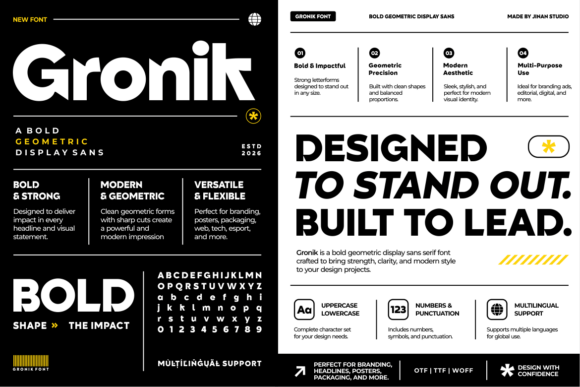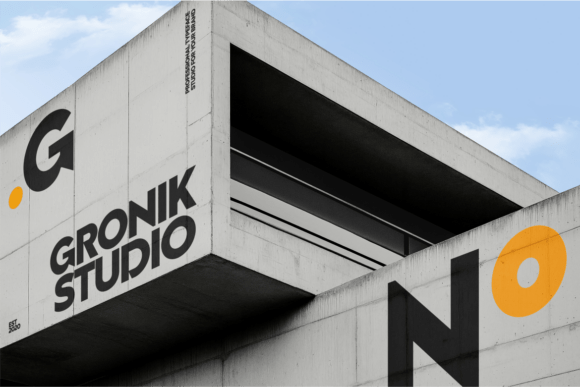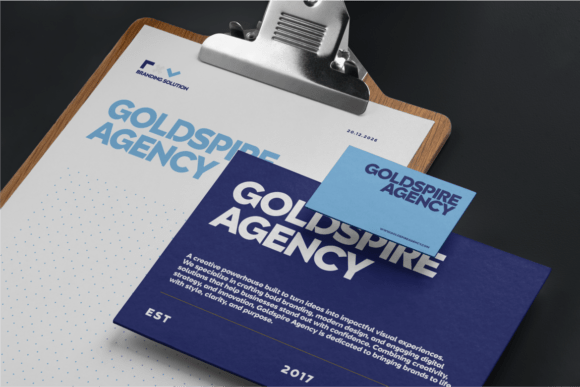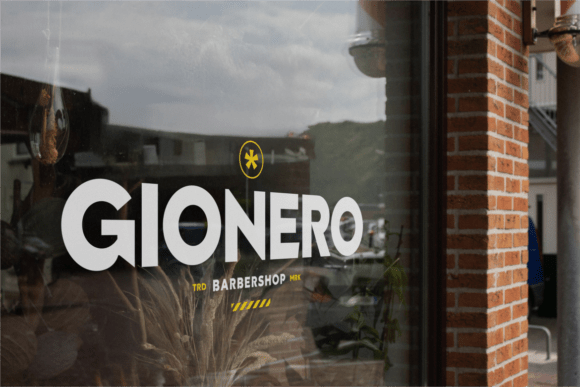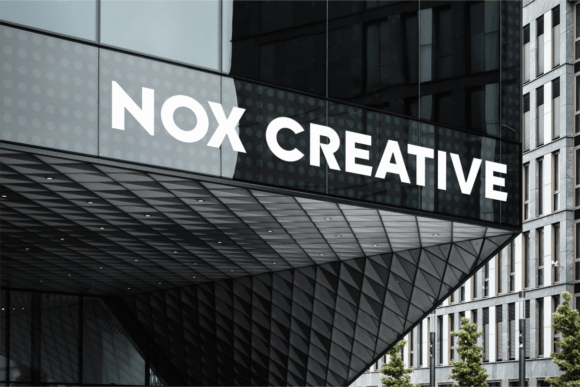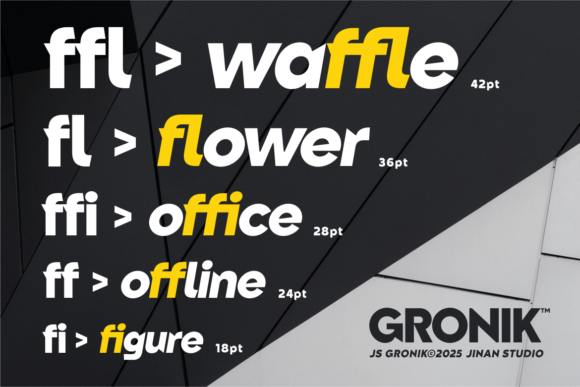
Gronik Font: Elevate Your Design with a Bold Geometric Style
In the world of typography, a font can make or break a design project. When it comes to creating a lasting impression, designers need a font that is not only visually striking but also versatile and modern. This is where Gronik Font comes in – a bold geometric display sans serif font that is built for striking and modern typography.
The Design Behind Gronik
Gronik Font is designed with a balanced geometric structure that delivers a clean and powerful appearance while maintaining a creative and energetic character. The font combines solid shapes, smooth curves, and a confident contemporary style, making it perfect for a wide range of design projects. Whether you’re working on a logo, headline, poster, digital graphic, packaging, gaming theme, music cover, or modern editorial layout, Gronik brings a strong visual rhythm to the table.
Key Features of Gronik Font
- Bold and Geometric: Gronik’s bold geometric design makes it perfect for creating striking and modern typography.
- Versatile: The font’s versatile design makes it suitable for both futuristic visuals and playful compositions.
- Clean and Powerful: Gronik’s balanced geometric structure delivers a clean and powerful appearance.
- Creative and Energetic: The font maintains a creative and energetic character, making it perfect for designs that need a boost of energy.
Gronik Font is perfect for designers and crafters who want to create bold and memorable visual identities. The font’s versatility makes it suitable for a wide range of design projects, including:
- Logos: Create a lasting impression with a bold and geometric logo that stands out from the crowd.
- Headlines: Add a touch of modernity to your headlines with Gronik’s clean and powerful design.
- Posters: Create eye-catching posters that grab attention with Gronik’s striking typography.
- Digital Graphics: Add a professional touch to your digital graphics with Gronik’s versatile design.
- Packaging: Create bold and memorable packaging designs that stand out on store shelves.
- Gaming Themes: Add a touch of modernity to your gaming themes with Gronik’s bold and geometric design.
- Music Covers: Create eye-catching music covers that grab attention with Gronik’s striking typography.
- Modern Editorial Layouts: Add a touch of sophistication to your modern editorial layouts with Gronik’s clean and powerful design.
Why Choose Gronik Font?
When it comes to choosing a font for your design project, there are many options available. However, Gronik Font stands out from the crowd due to its unique combination of bold geometric design, versatility, and modernity. Here are some reasons why you should choose Gronik Font for your next design project:
- Unique Design: Gronik Font has a unique design that sets it apart from other fonts.
- Versatility: The font’s versatility makes it suitable for a wide range of design projects.
- Modernity: Gronik Font has a modern and contemporary design that will elevate your design project.
In conclusion, Gronik Font is a bold geometric display sans serif font that is perfect for designers and crafters who want to create striking and modern typography. Its unique combination of solid shapes, smooth curves, and confident contemporary style makes it suitable for a wide range of design projects. Whether you’re working on a logo, headline, poster, digital graphic, packaging, gaming theme, music cover, or modern editorial layout, Gronik Font is the perfect choice. So why wait? Download Gronik Font today and elevate your design project with a bold and geometric style.